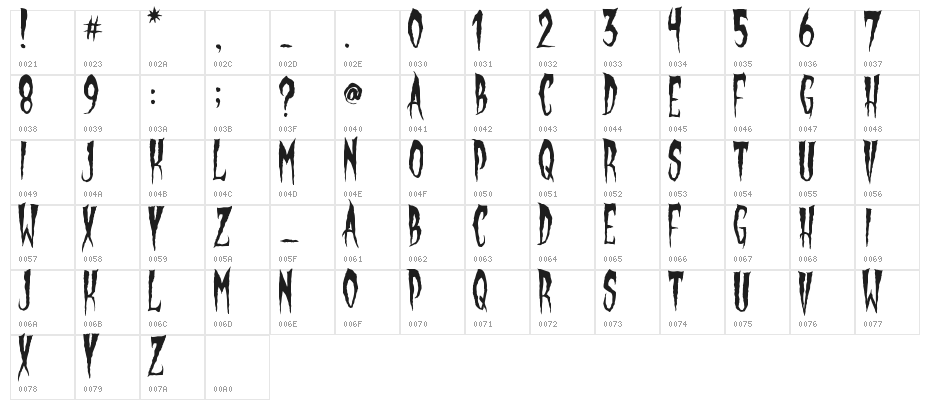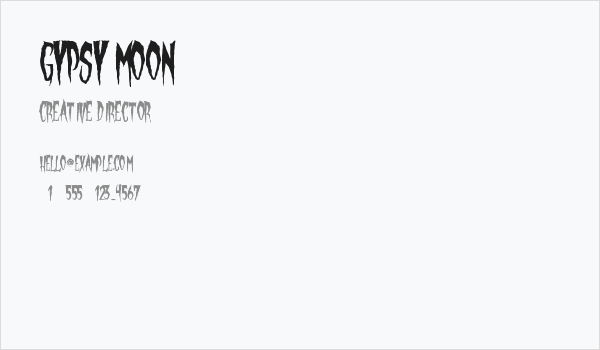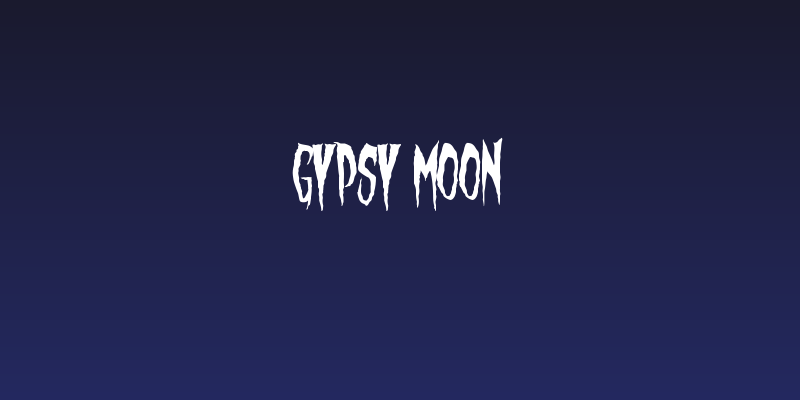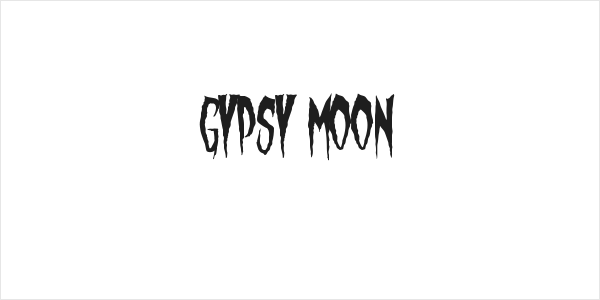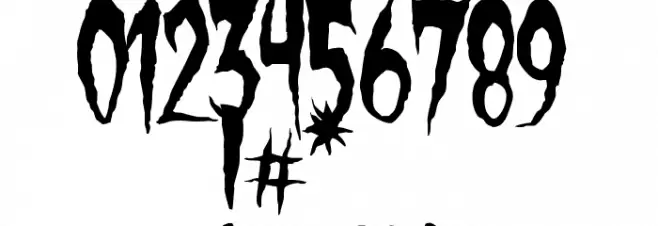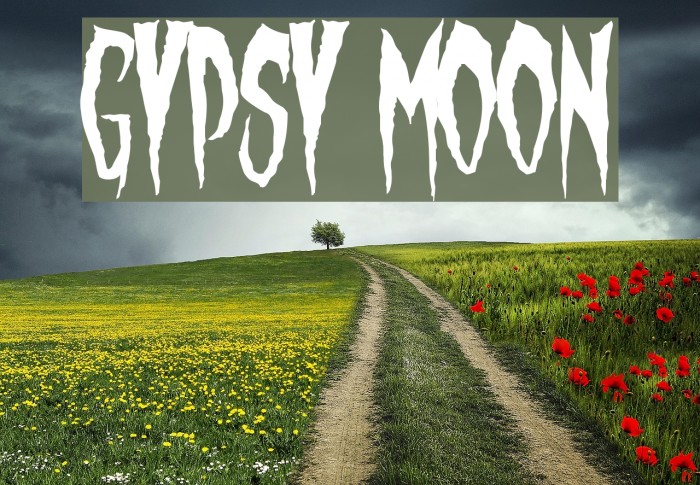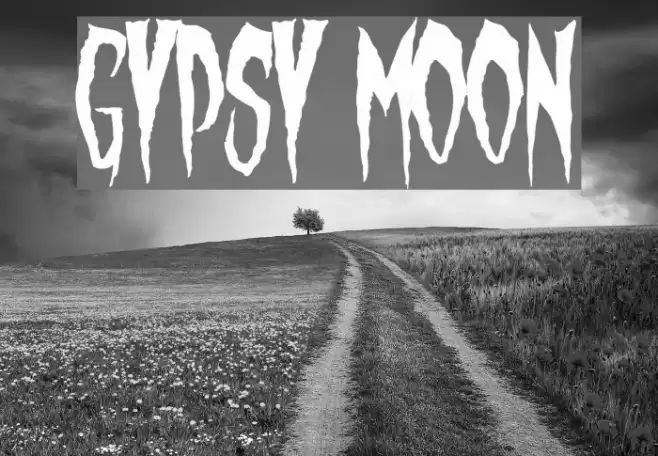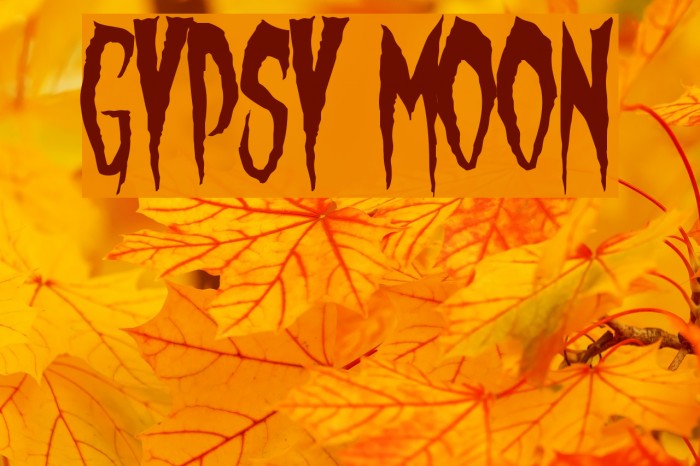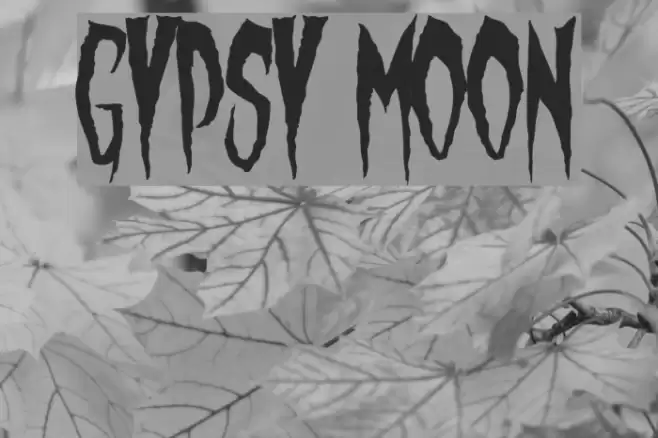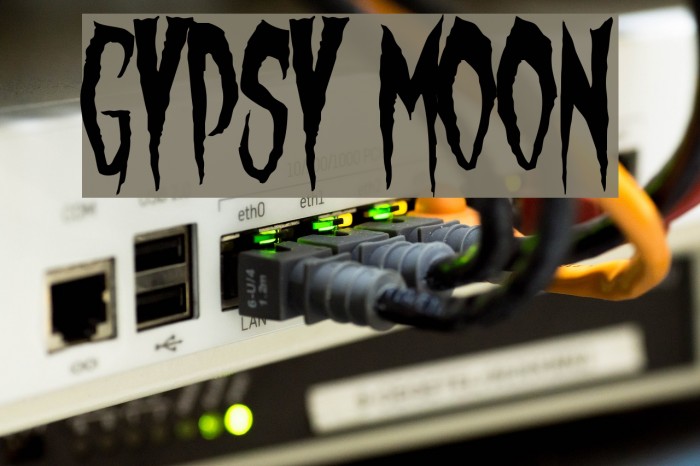
Gypsy Moon Font
| Общий стиль | Gothic, Decorative |
| Область применения | Headlines, Posters, Logos |
| Рекомендуемые проекты | Ideal for horror-themed posters, Halloween invitations, album covers, or any project needing a dramatic and unique typeface. |